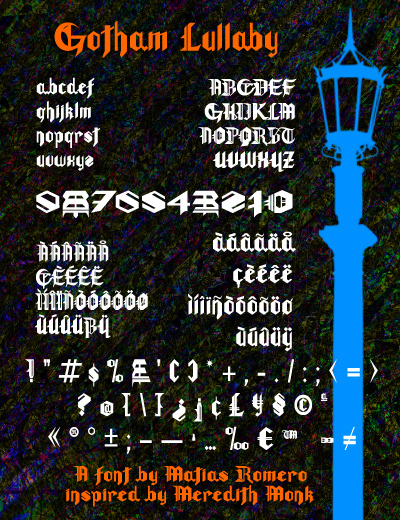
Gotham Lullaby by Matias Romero is a free modern blackletter font with dramatic angular construction and abrupt shifts between broad strokes and fine vertical lines. Its pointed joins and split contours feel architectural and severe.
Gothic music and nocturnal fantasy are its clearest territory, making it suited to album covers, concert posters, and game title screens with a hard, theatrical edge. The same blade-like shapes can turn fashion branding and editorial covers into stark graphic emblems, especially for work rooted in underground culture.